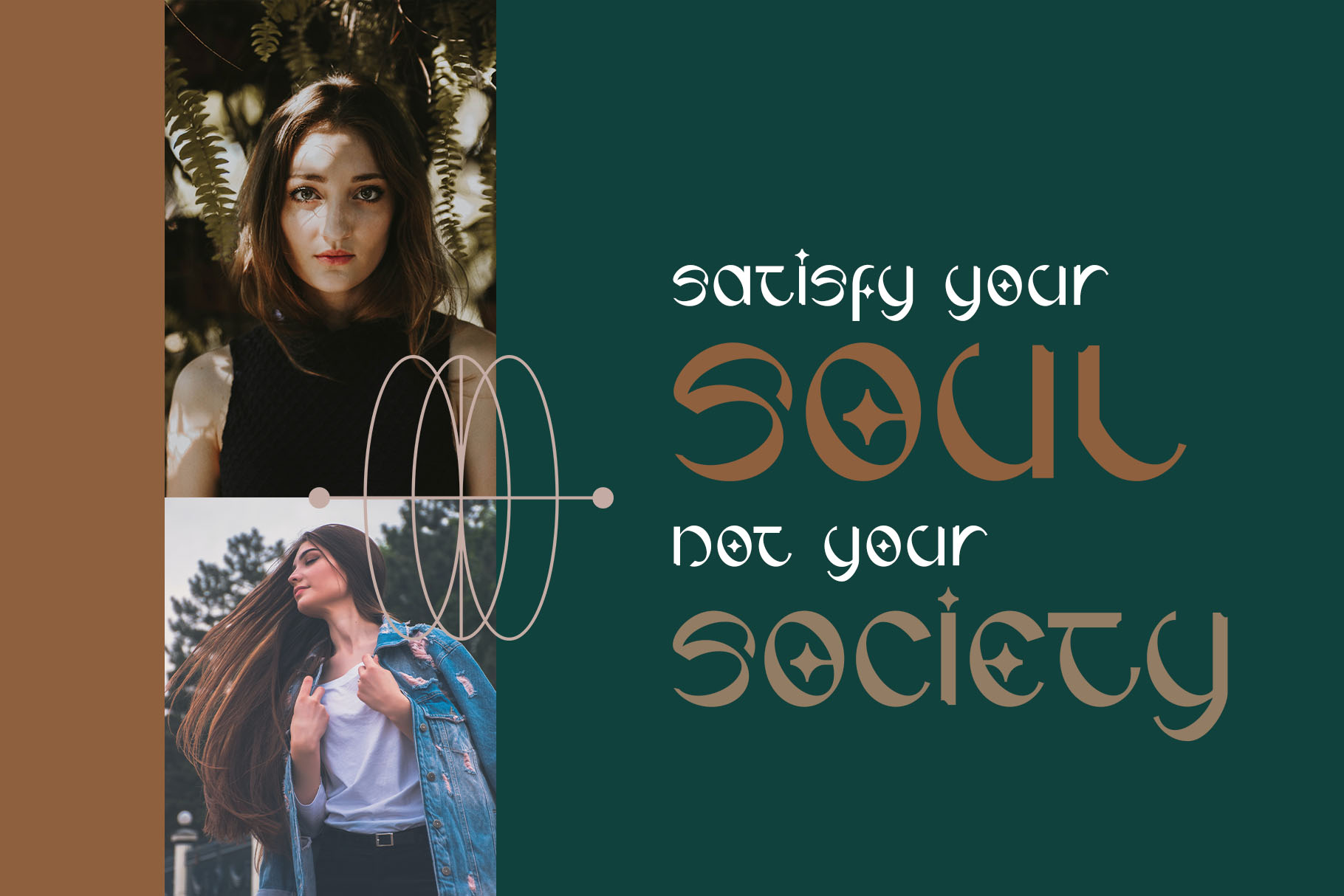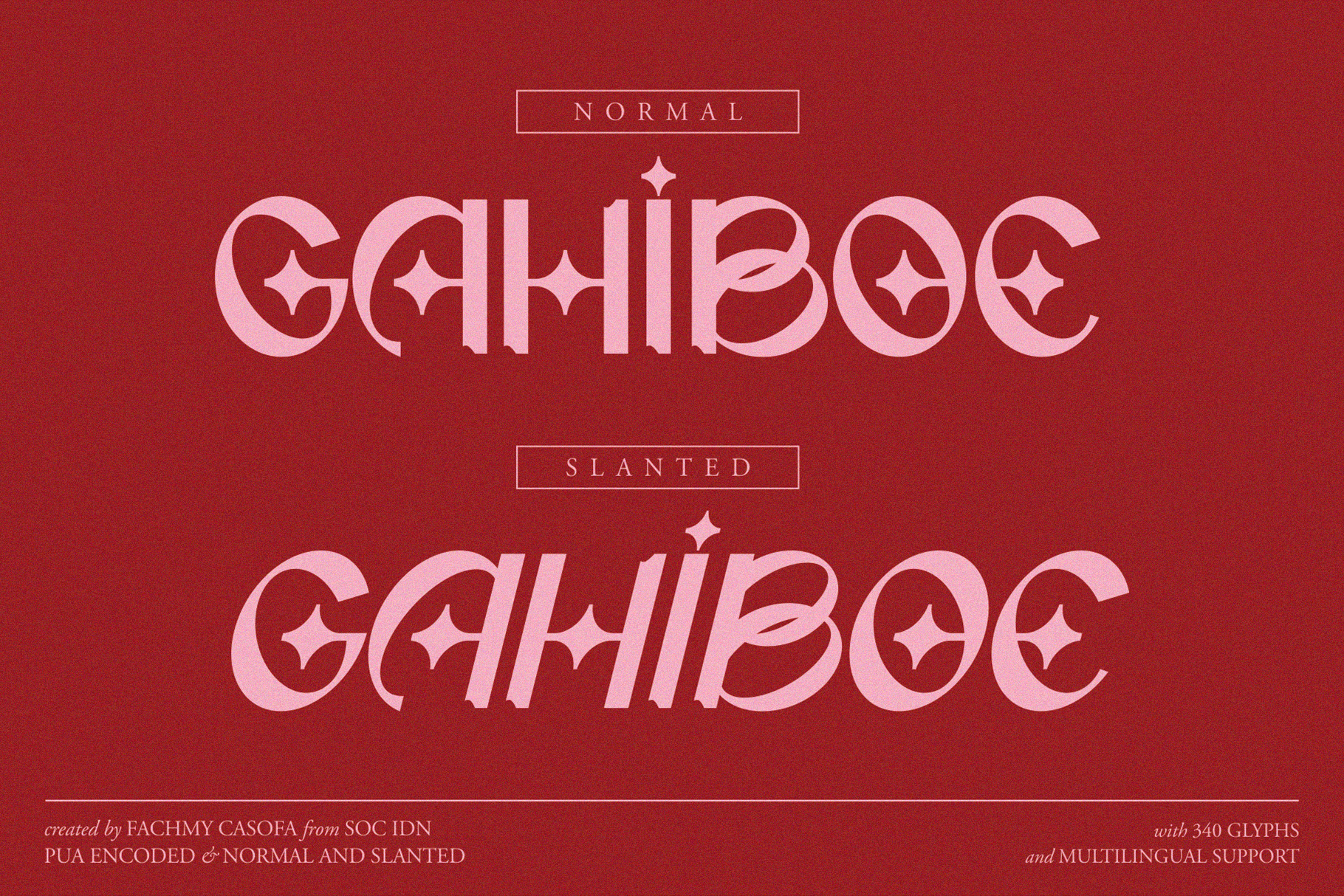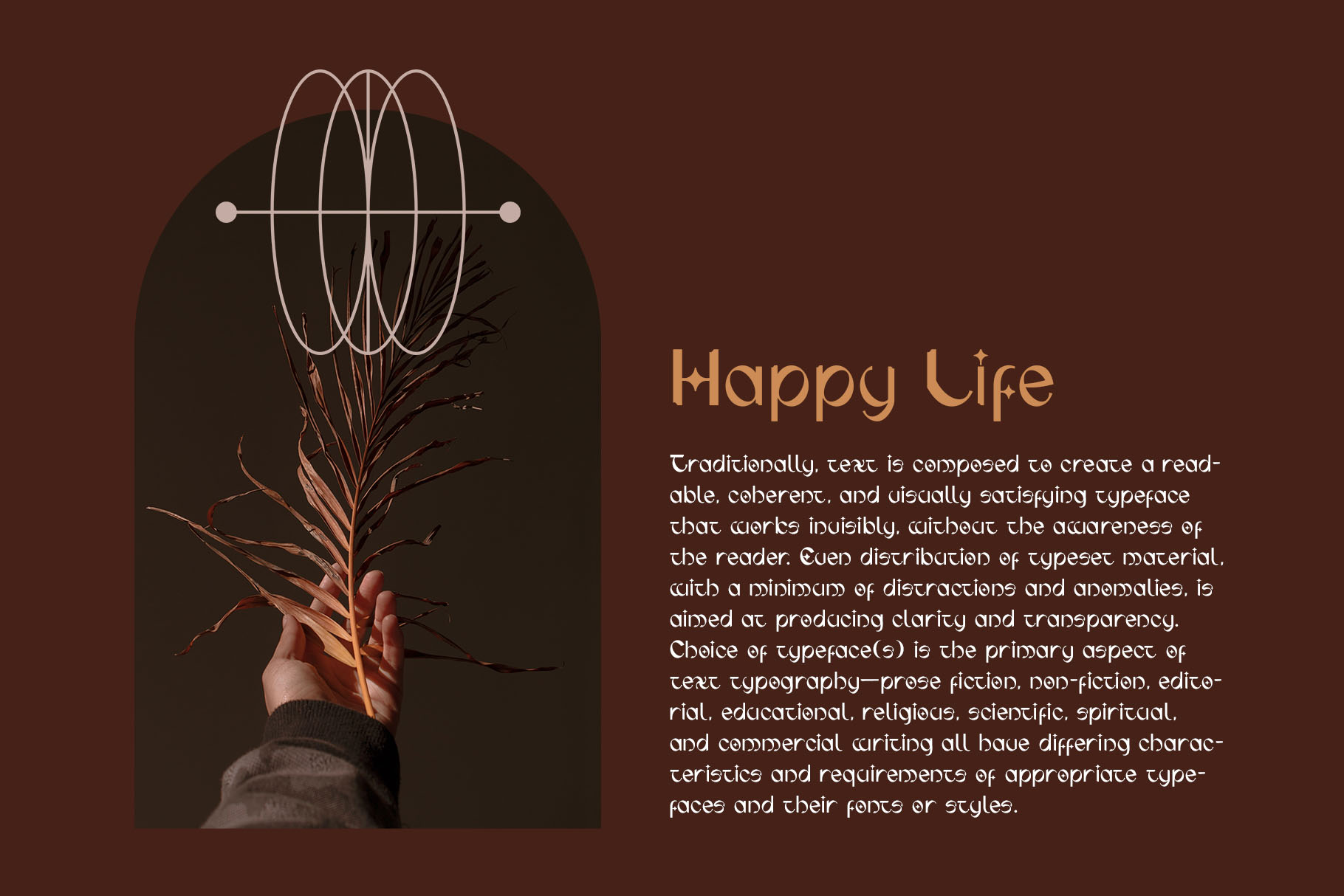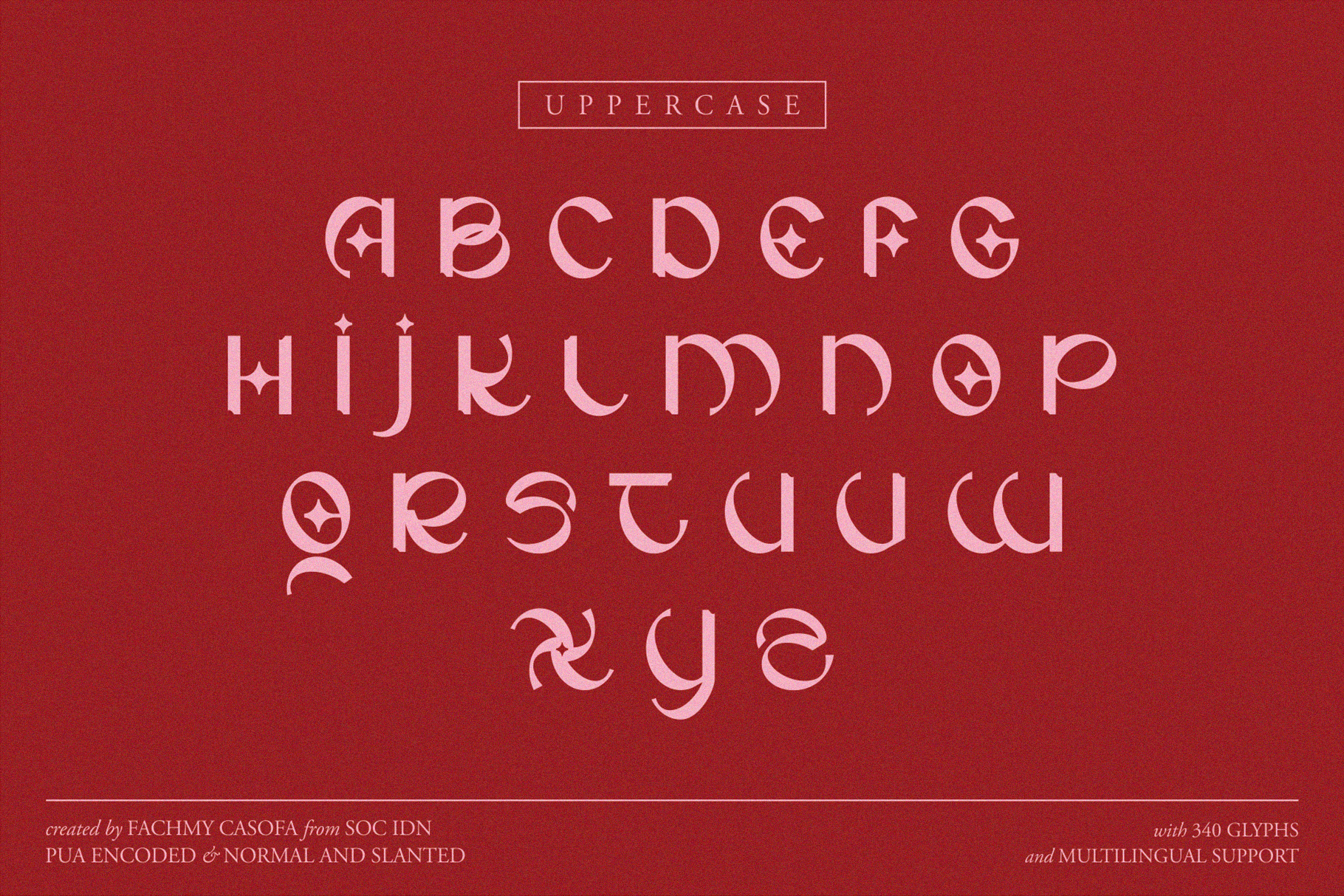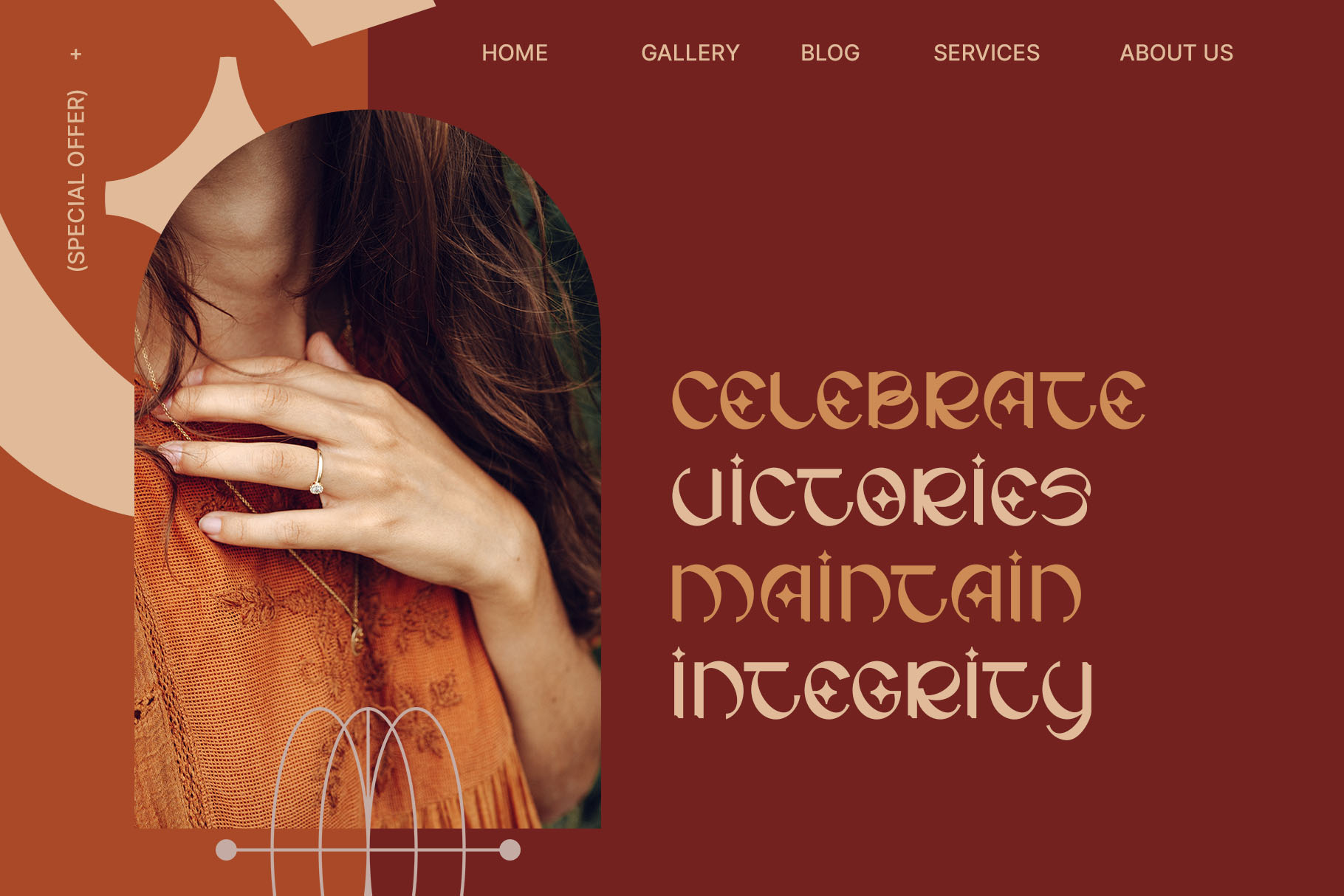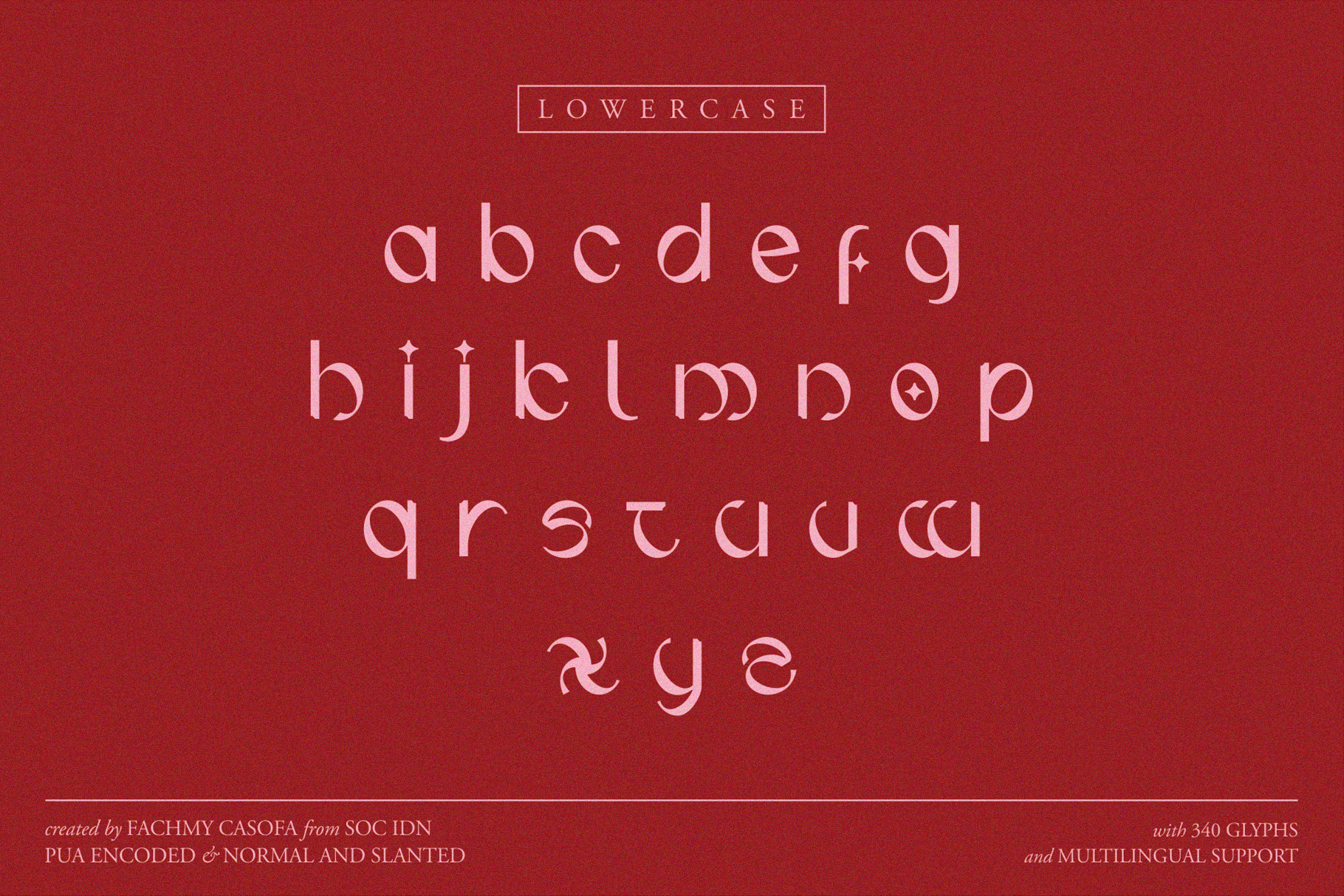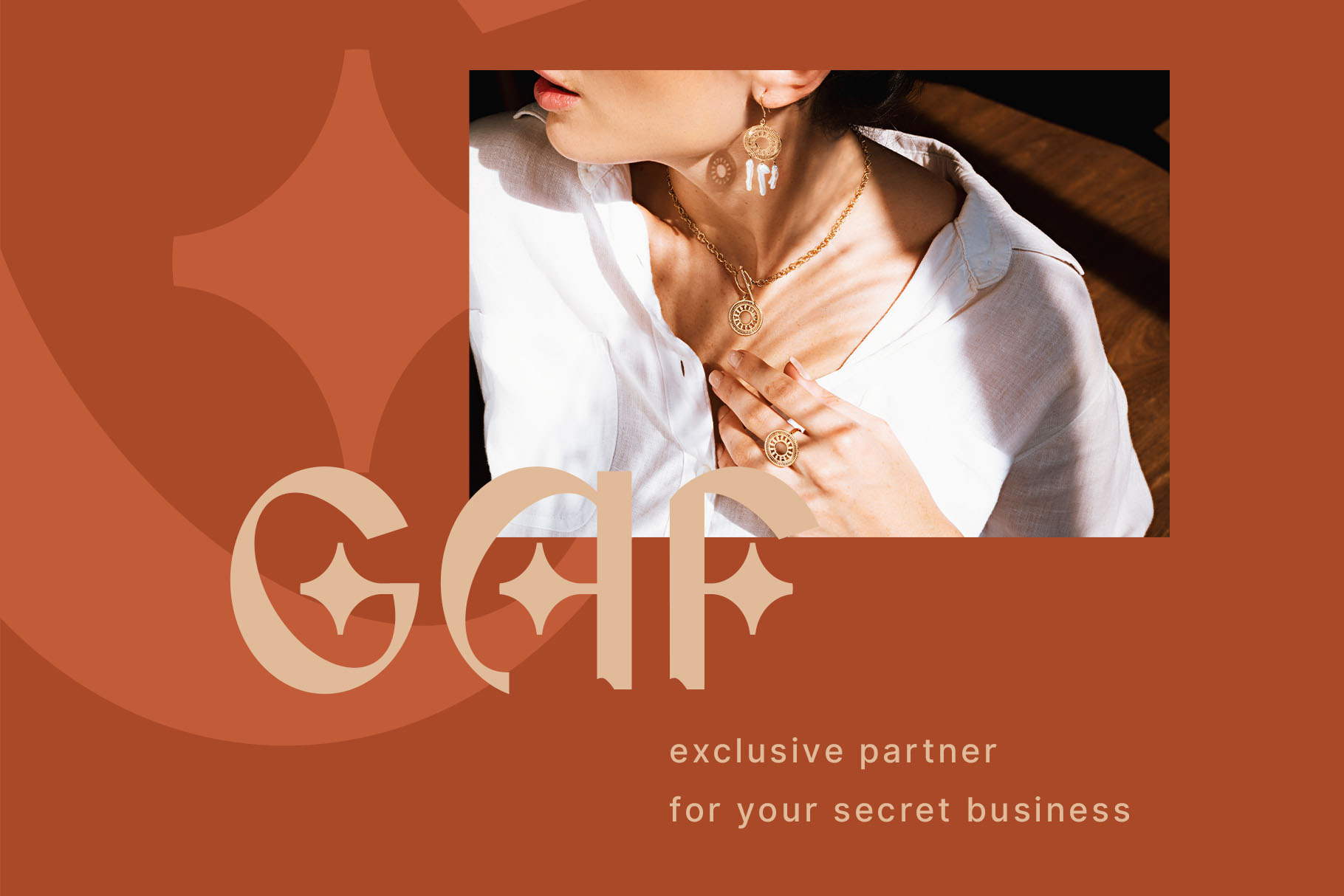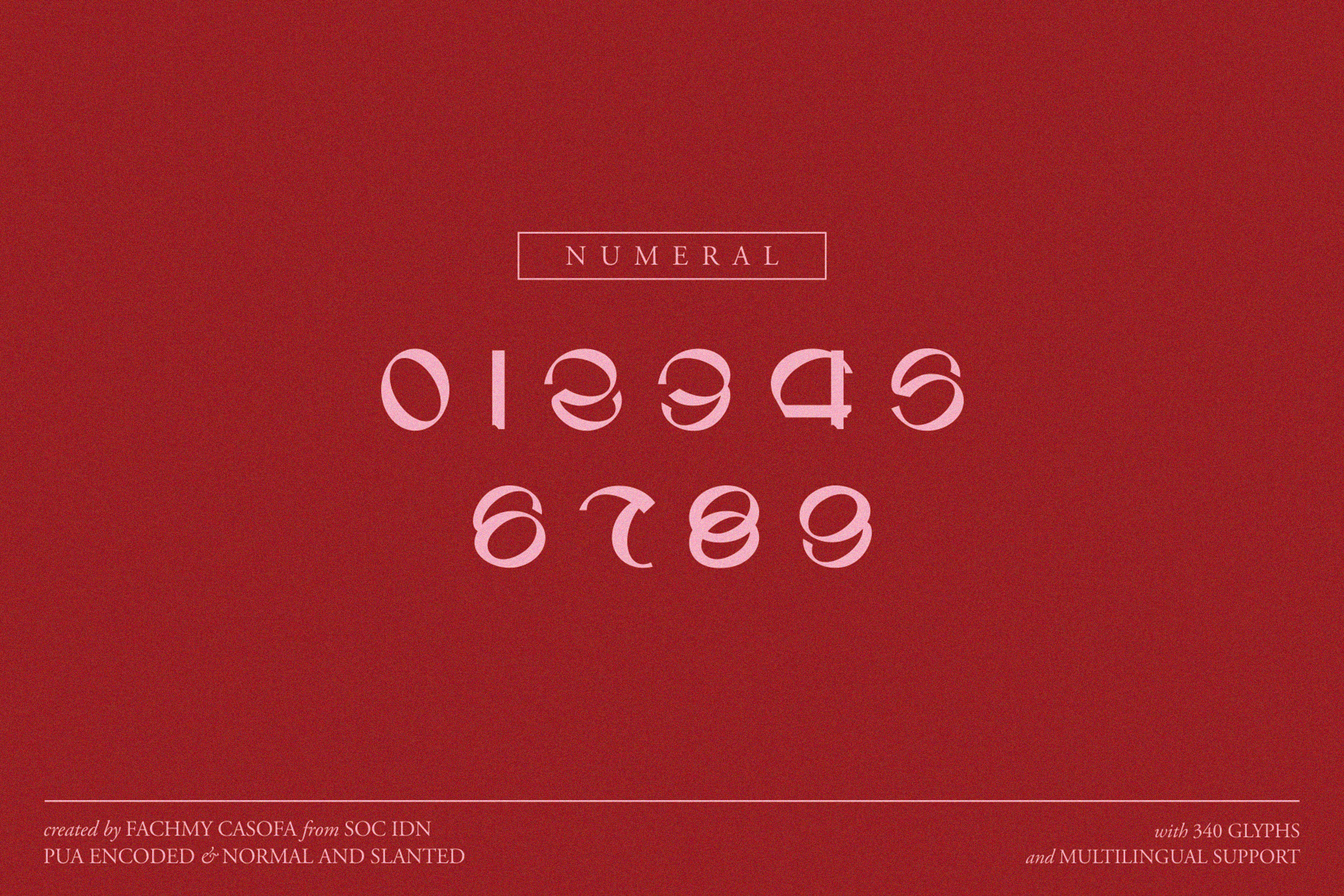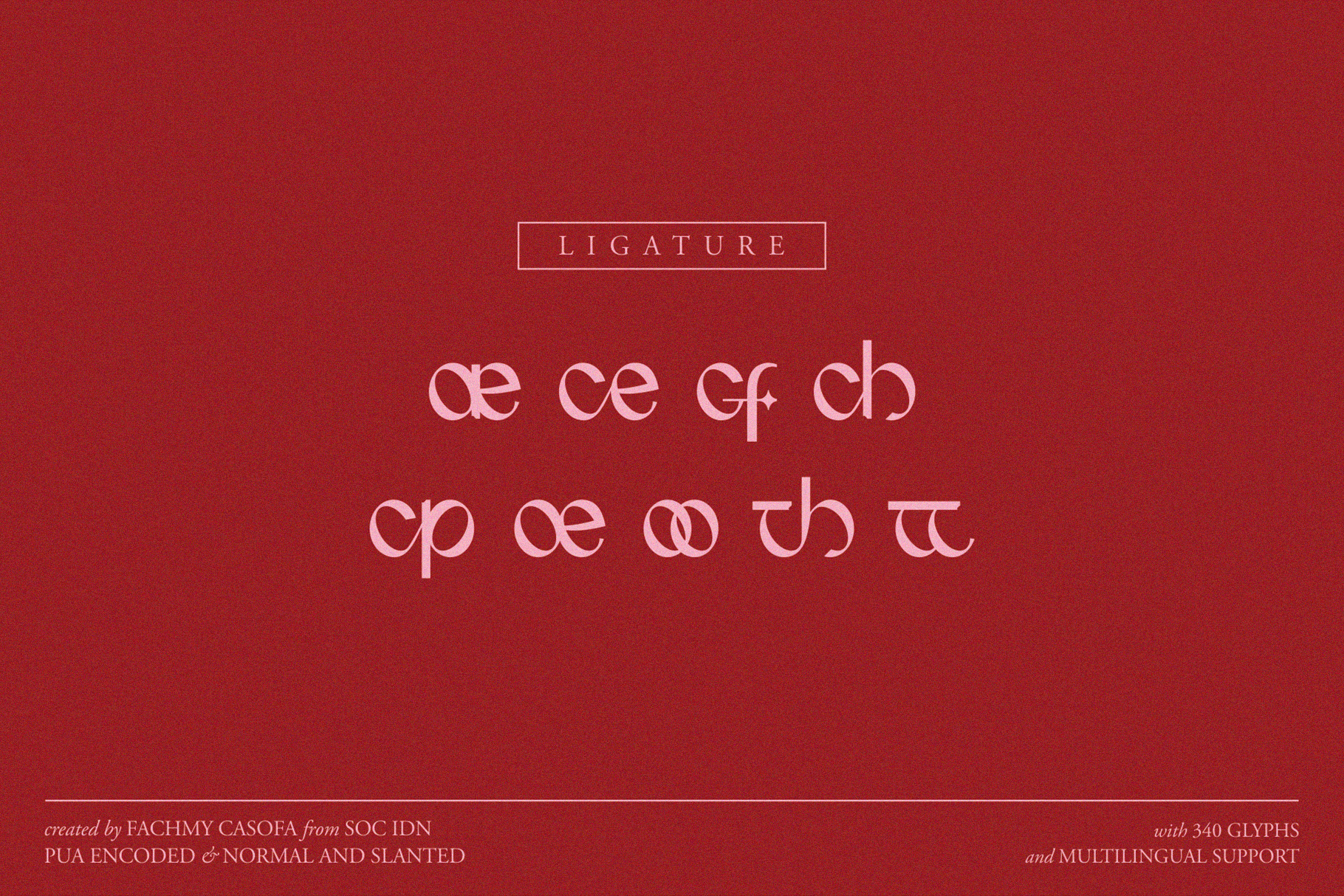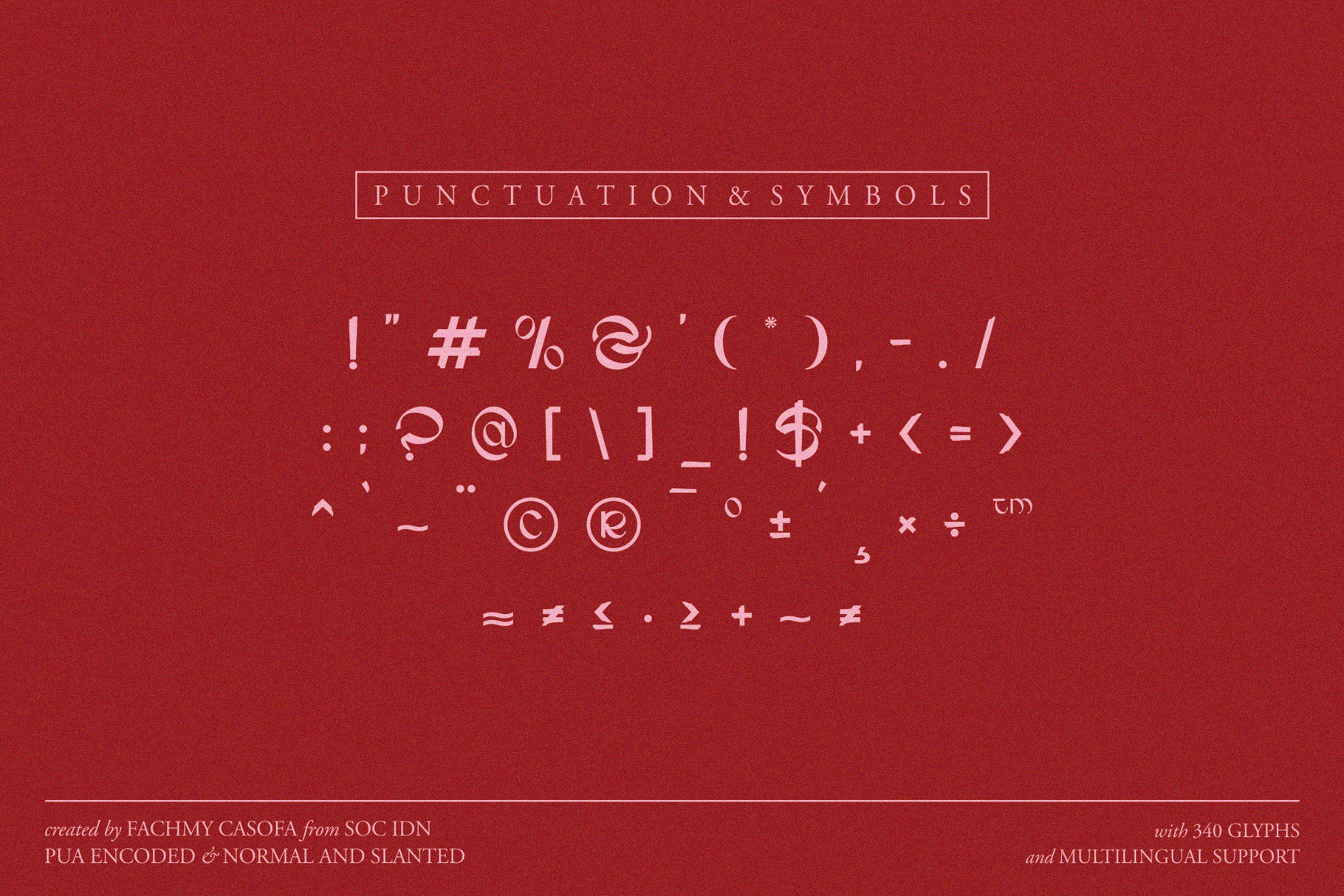
Gahiboe – Unique Boho Retro Font
GAHIBOE is aesthetic-vibes display font with bold and complex personality. It was purposely crafted to be used in large point sizes, although it doesn’t lose its magic in small point sizes. It is perfect for headline, billboard, magazines, website, titles, poster, branding, logos, social media posts, advertisements, product packaging, product designs, label, photography, watermark, invitation, stationery, etc. It is simple, easy to read, and works awesome in header. With this beautiful font, absolutely you can make your project stand out from the rest.
• 2 Styles: Regular & Slant
• Contains 340 Glyphs for Each Style (Total: 680 Glyphs)
• Uppercase and Lowercase
• Ligature, Numeral & Punctuation
• Multilingual Support